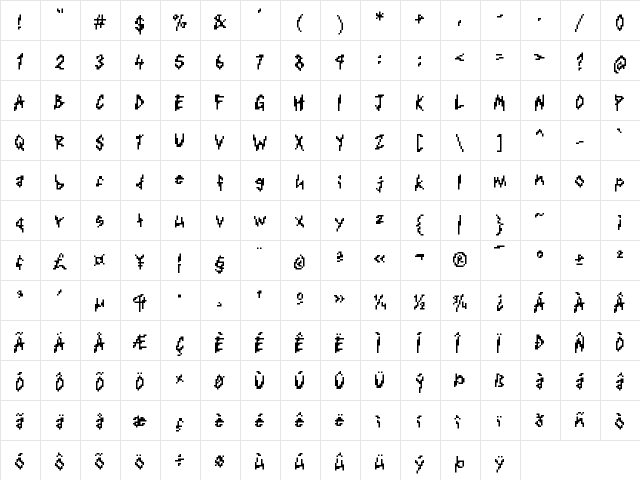
DoubleHomicide Medium
Design Context for DoubleHomicide Typeface
DoubleHomicide is a composed and adaptable typeface that performs quietly and consistently across a wide range of design contexts.
Pro Tip: Use DoubleHomicide in both headline and body roles to test its range before committing to a single application.